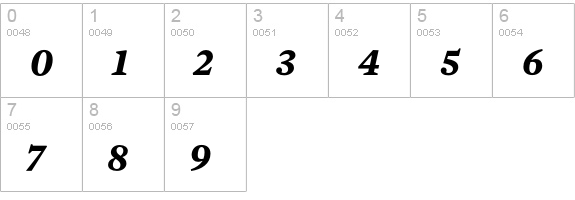
Mercury Text G3 Bold Italic Font Details
Mercury Text G3 Bold Italic is a strong, high-contrast, italic variant in the Mercury typeface family \xE2\x80\x94 well suited to headlines, attention-grabbing titles, and strong calls-to-action.
Mercury Text G3 Bold Italic font exudes a sense of modern sophistication with its bold and italic design. This versatile font is perfect for creating striking headlines, eye-catching logos, and elegant designs. The bold weight adds a strong presence to any project, while the italic style brings a touch of flair and drama. Whether you're working on a print ad, website design, or branding project, Mercury Text G3 Bold Italic is sure to make a statement. And the best part? This exquisite font is available for free download at FontsMarket.com. So go ahead and elevate your design projects with the bold and italic charm of Mercury Text G3.